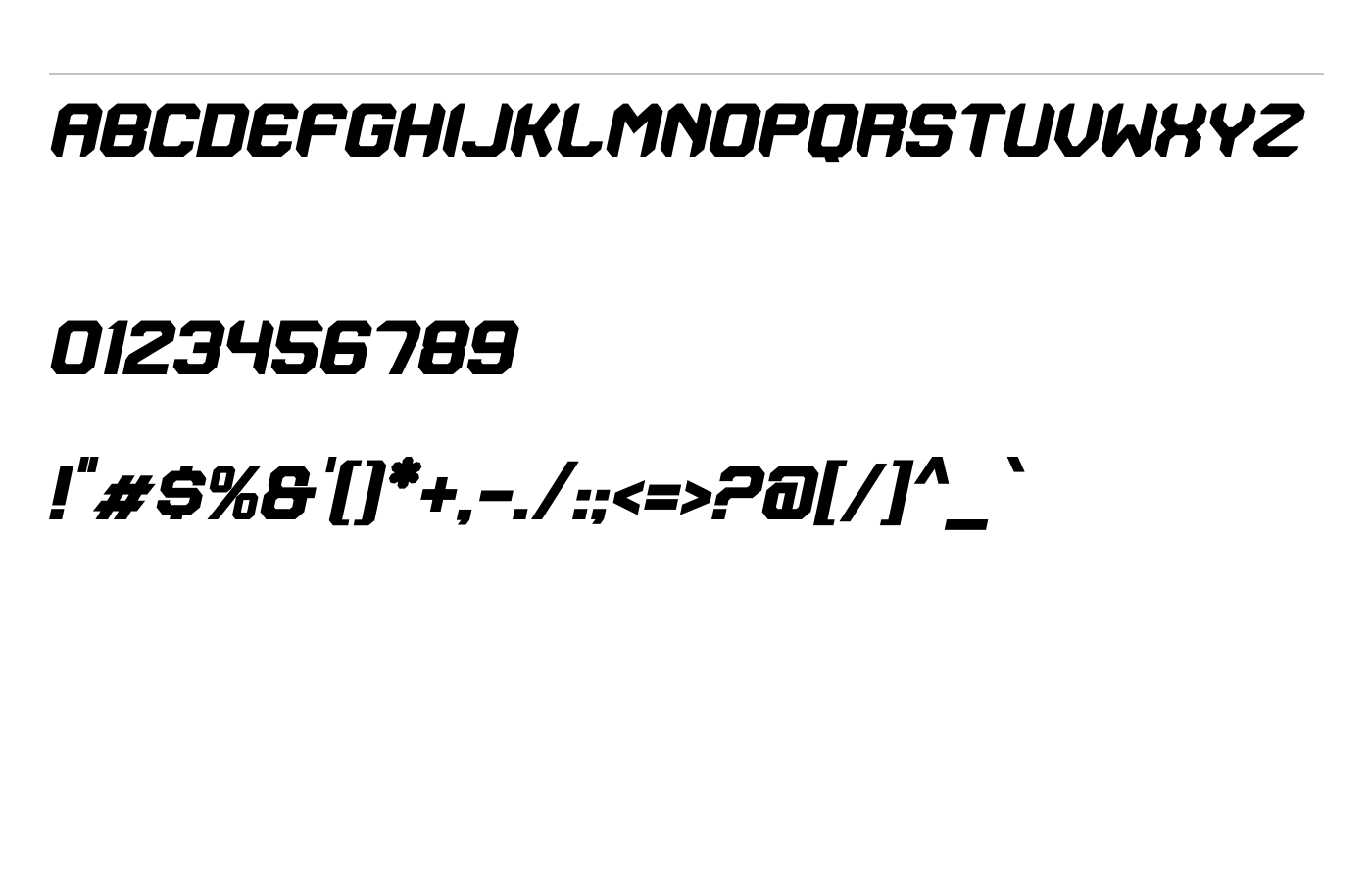
Adrenal is a bold, condensed sans serif font with a strong geometric and futuristic style, featuring sharp angles and an italic slant that conveys speed and energy. Its high-impact design makes it ideal for sports branding, technology, and dynamic headlines where a sense of motion and intensity is desired. This font works best in logos, posters, and other display uses that need to grab attention with a bold, modern edge.
adrenal Font
About adrenal Font
| Font family | adrenal Font |
| Designer | Sulistiyono Widodo |